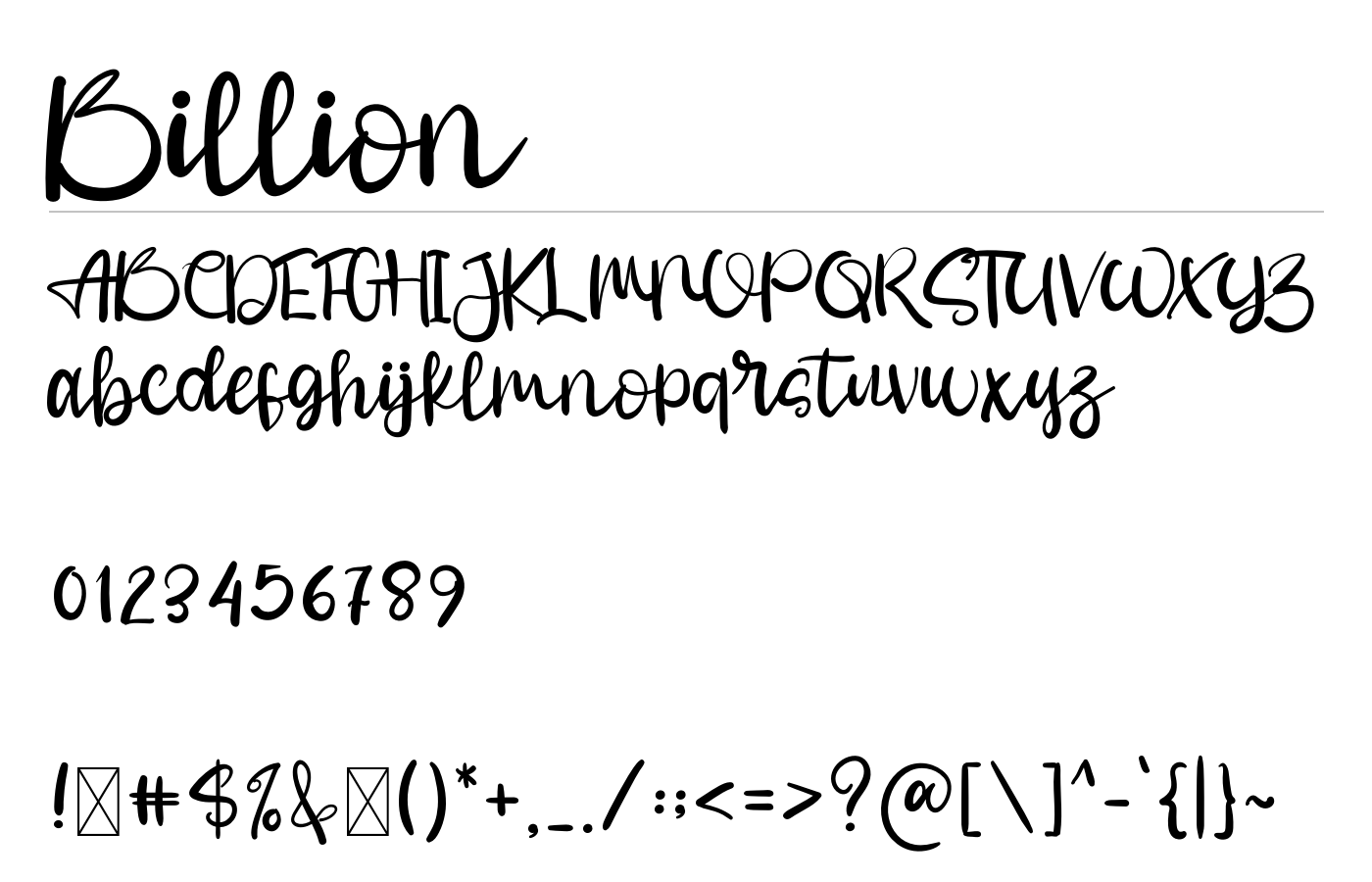
Billion Font is a playful, casual script style with a hand-drawn feel that combines lively, looped strokes and varying thickness for an inviting and personal touch. Its warm, informal character makes it ideal for creative branding, invitations, and designs that want to convey friendliness and charm without sacrificing readability. This font works perfectly for projects needing a fun, approachable look while maintaining a sense of style and individuality.
Billion Font
About Billion Font